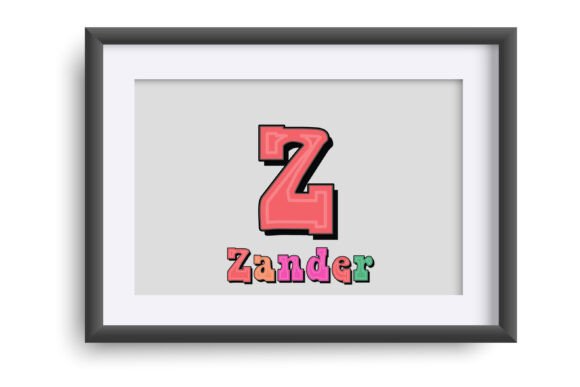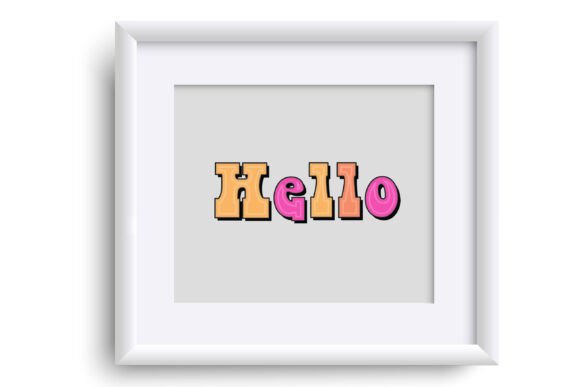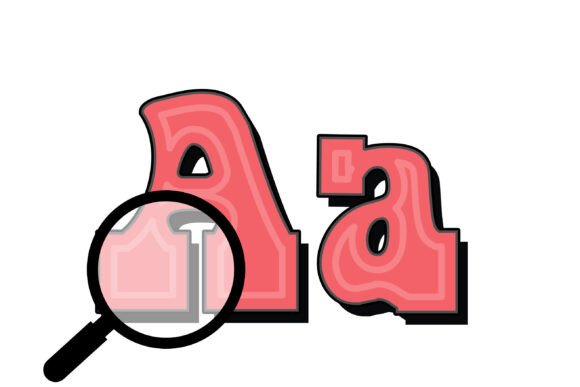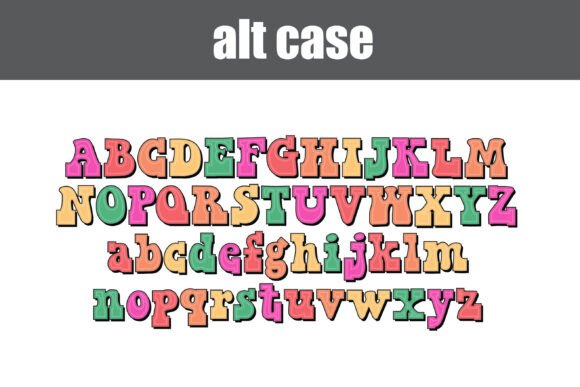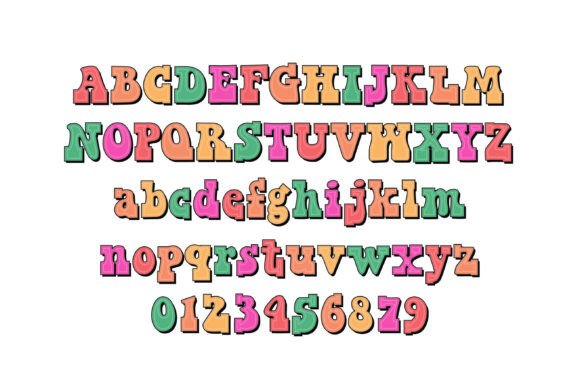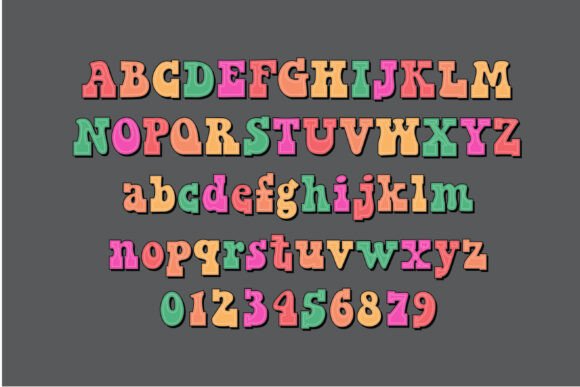
Introduction to Rainbow Moves Font
This full-color font features a retro style, serif font in a rainbow color palette.
There is an alt case of additional colors of each letter that you can access through your system or Silhouetteโs glyph map OpenType full-color (SVG) fonts are installed like any normal .
Key Features of Rainbow Moves Font